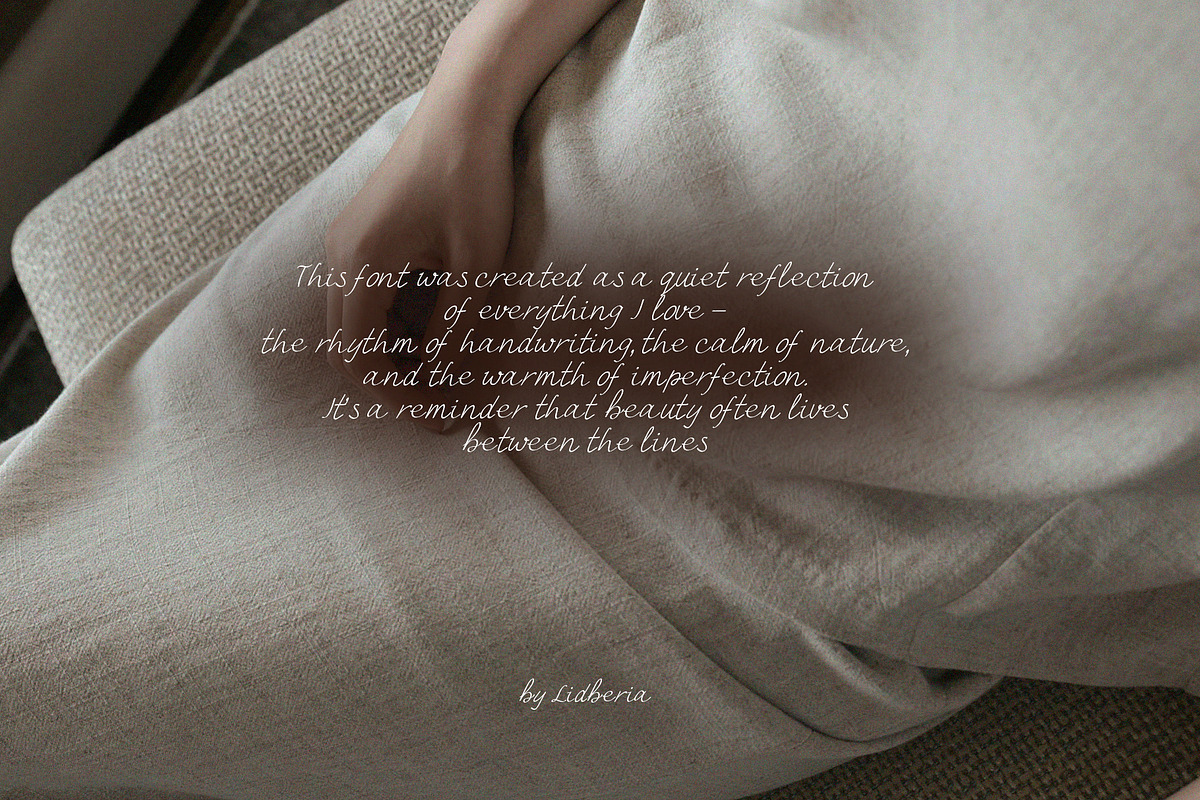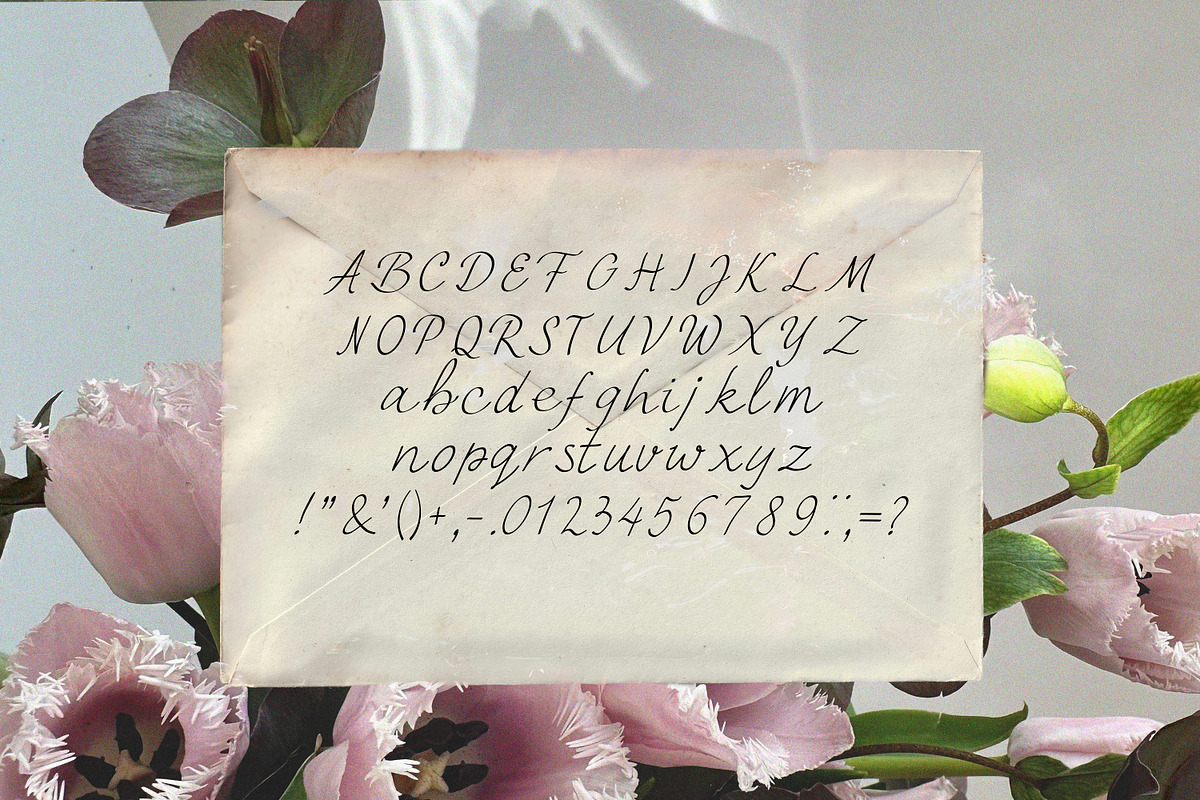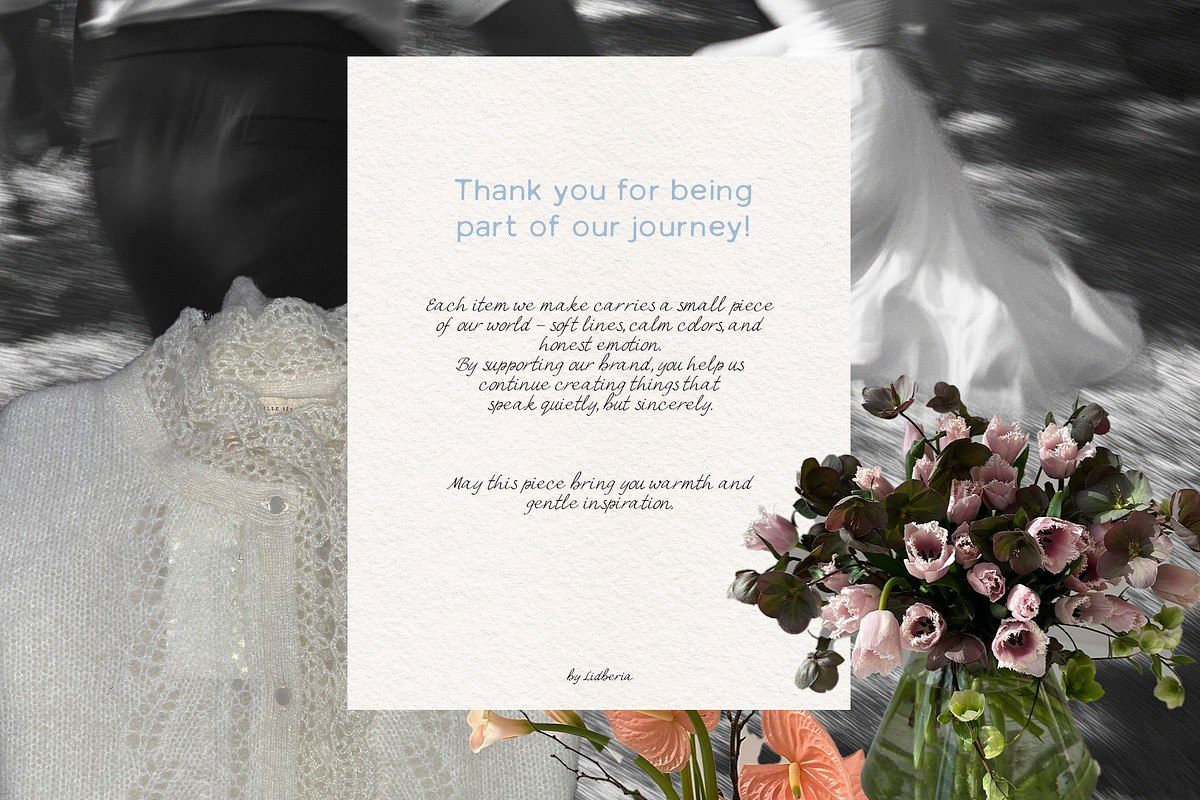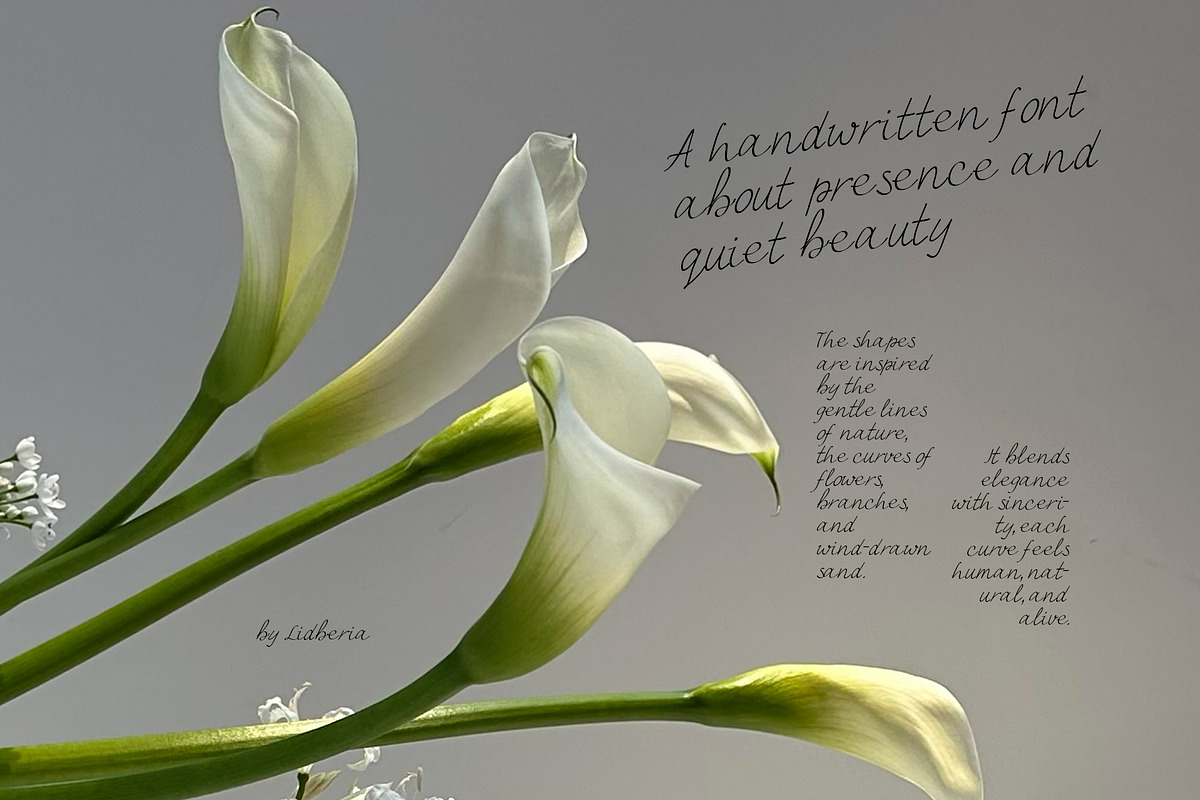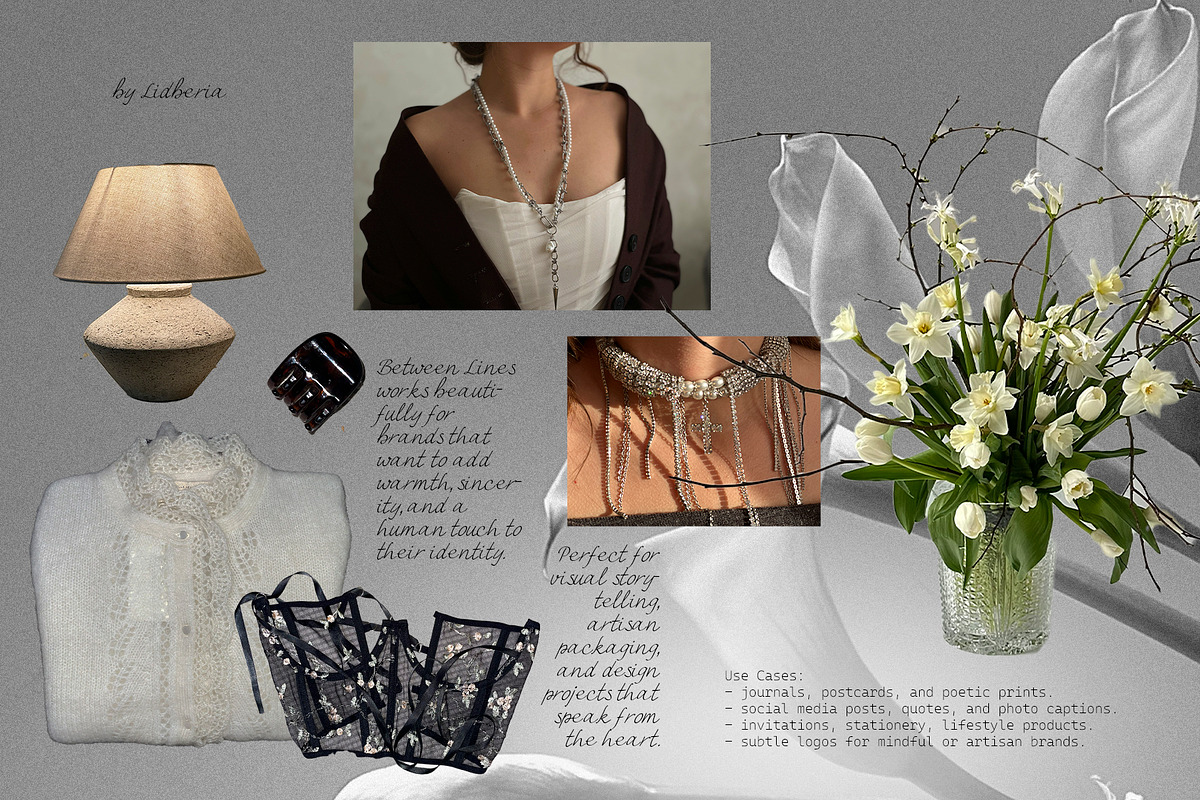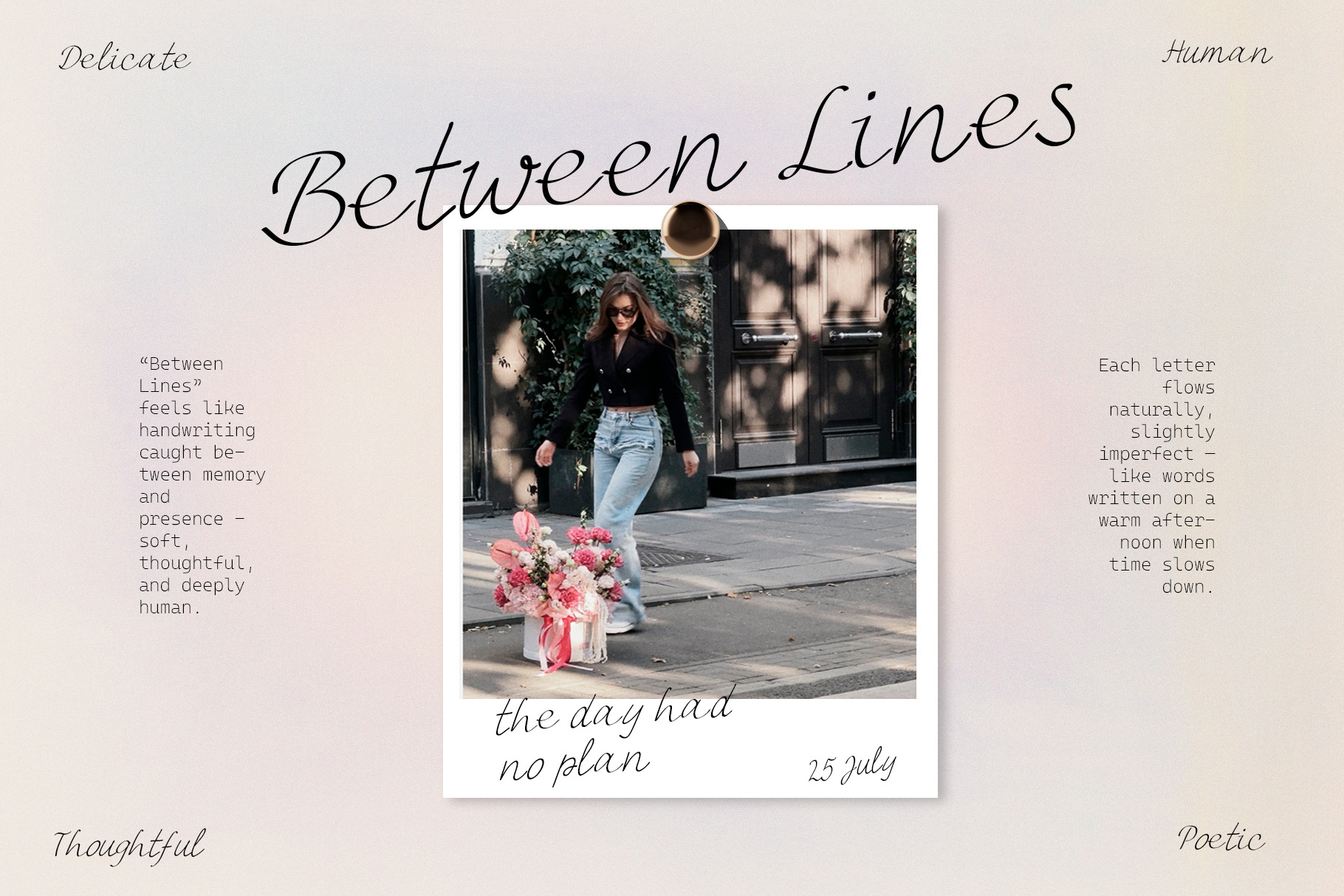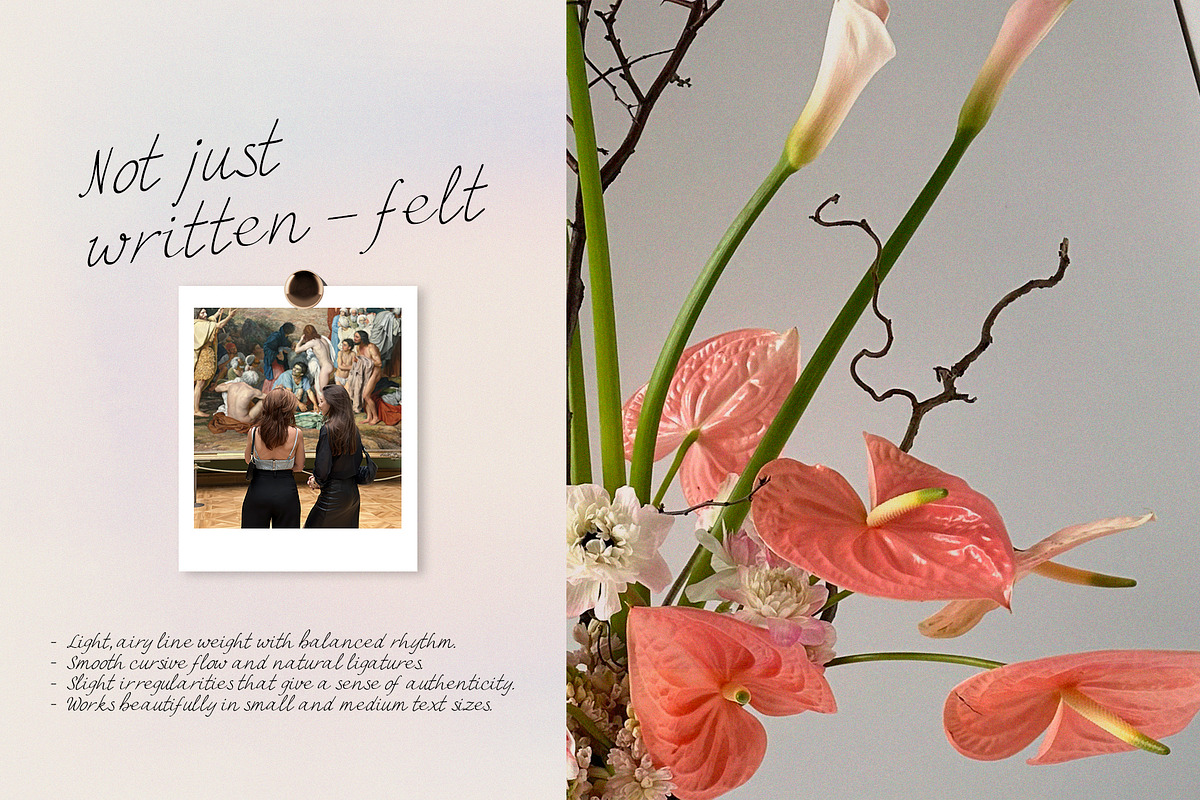
Between Lines Handwritten Font
Between Lines — handwritten font inspired by nature, slow mornings, and the warmth of human touch.
It combines elegance and sincerity, with soft lines and gentle rhythm — perfect for branding, packaging, quotes, and heartfelt design. This font brings an organic, emotional feeling to your projects, adding soul and authenticity to modern minimalism. Ideal for designers who value calm beauty, natural flow, and honest handwriting.